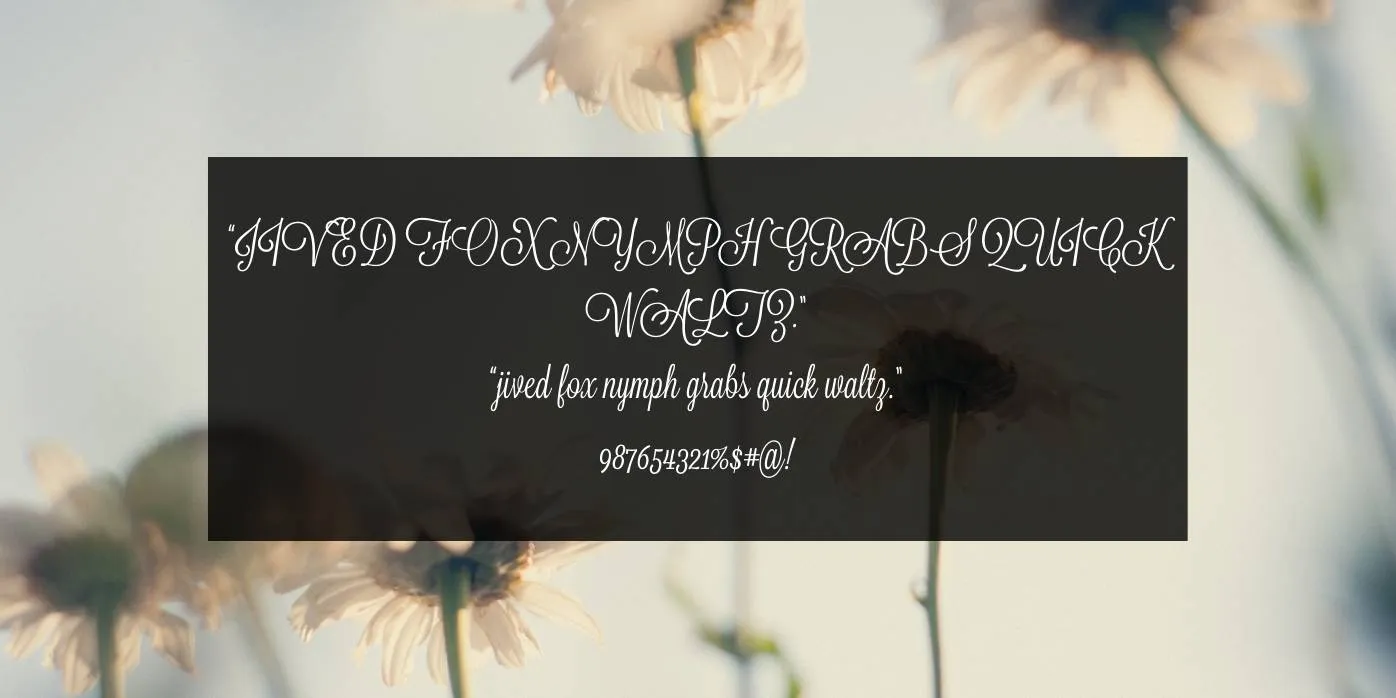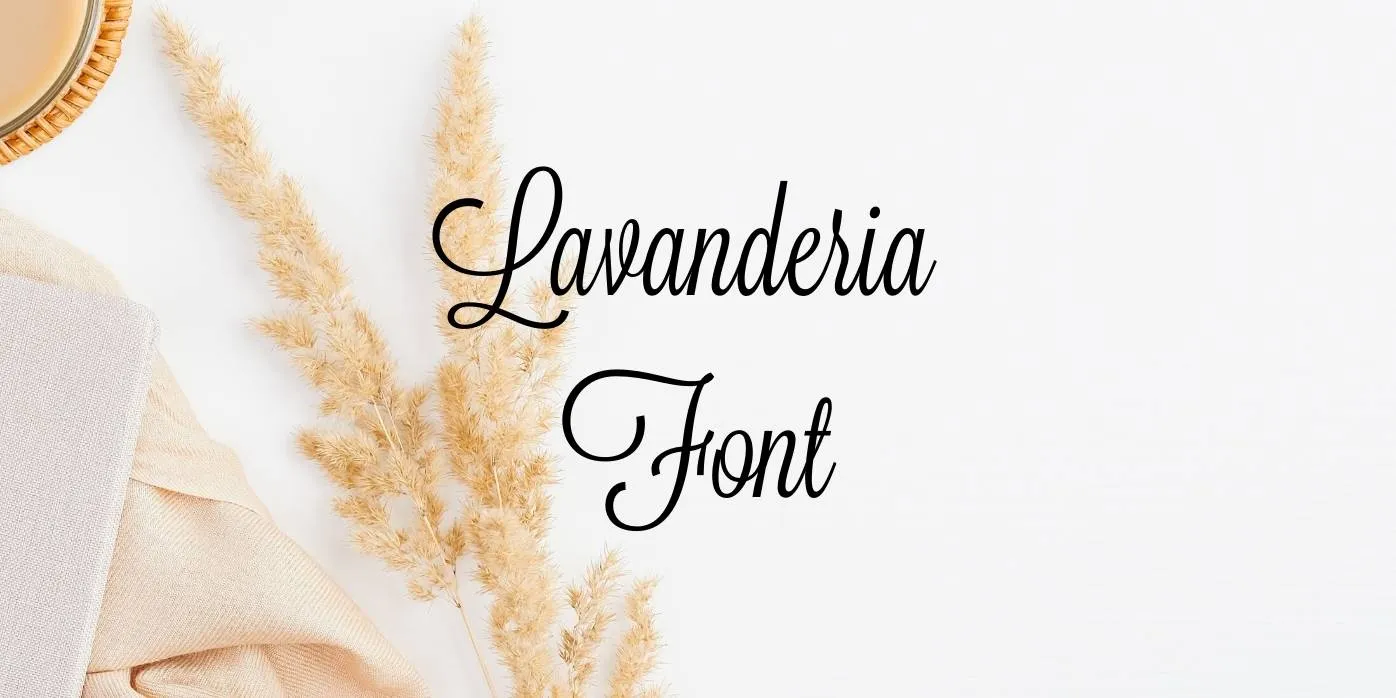
Lavanderia Font
In this post, we discuss a very marvelous typeface that is known by the name Lavanderia Font. This typeface belongs to the calligraphy font family. It is well specified for the CSS. This typeface includes three special weights regular, bold, and heavy.
This typeface was designed by James T. Edmondson a famous font designer. The current version of this family is 1.100. Also, this typeface includes uppercase and lowercase letters.